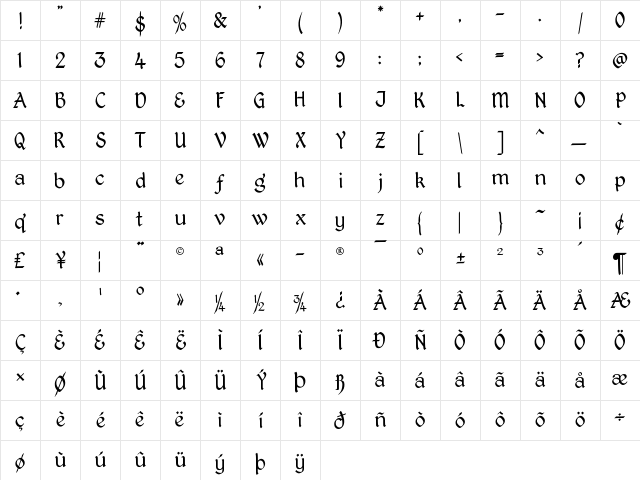
Kingthings Petrock Light Regular
Designer: Kevin King 2006
Design Context for Kingthings Petrock Light
Kingthings Petrock Light is a composed and adaptable typeface that performs quietly and consistently across a wide range of design contexts. Its slender proportions lend an understated elegance to any composition.